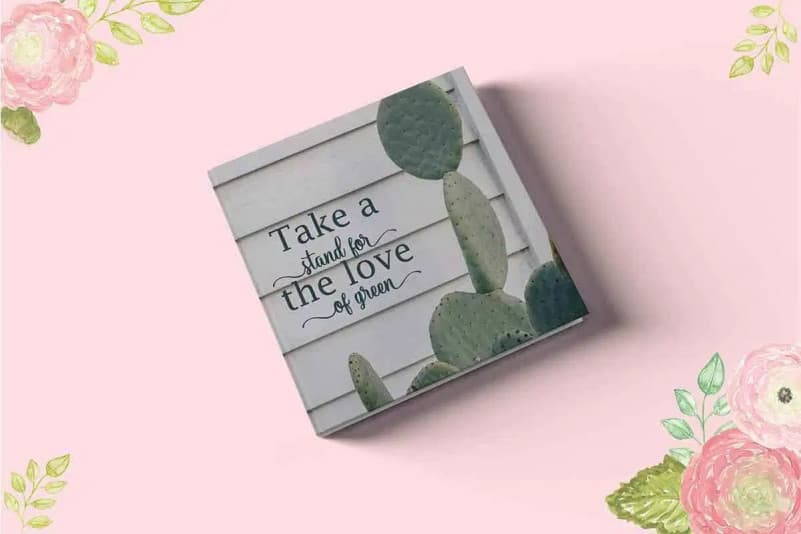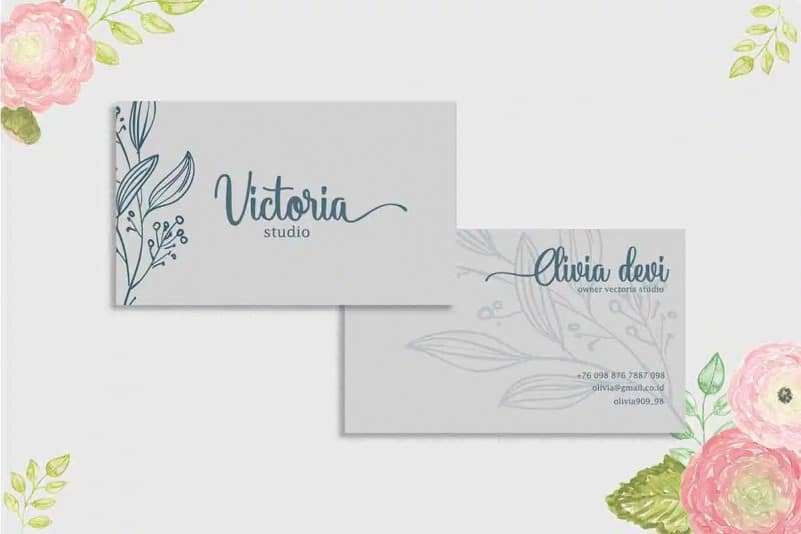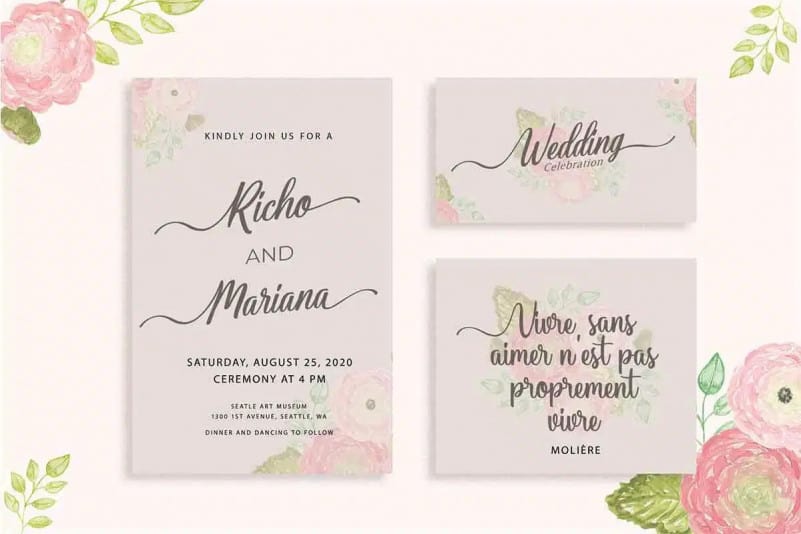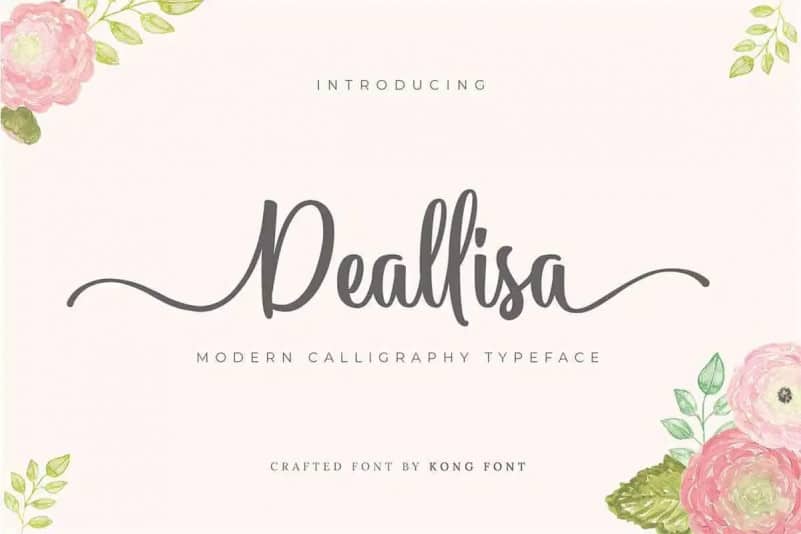
Deallisa Script Font
Thanks for checking out Deallisa Script Font. It’s stunning and enchanting, but also incredibly modern. It is a script font from the designer fontkong. Deallisa is perfect for various purposes such as branding, interior design, book title, printed on a t shirt, packaging, advertising, and many other stuff. Coming with a lot of language support, this font is perfect for you.